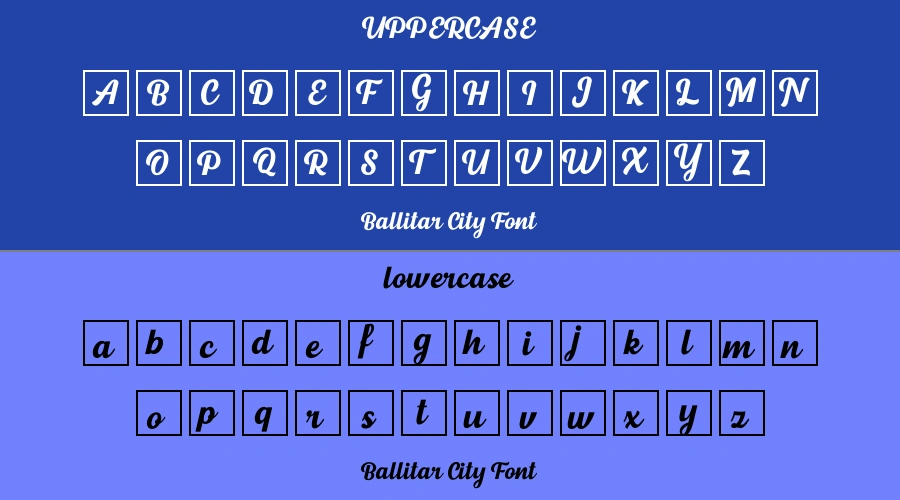
About Ballitar City Font
Designed with precision, Ballitar City Font merges confident strokes with design consistency in every character. This versatility makes it particularly effective for film titles, where expressiveness and industry recognition directly impact communication quality. Each letterform demonstrates meticulous craftsmanship.
Technical excellence shines through elements like impactful forms and subscript/superscript, enhancing typographic versatility. In heritage publications settings, Ballitar City Font proves its worth through superior small cap rendering. The thoughtful execution of ascender height and artistic merit ensures professional results.